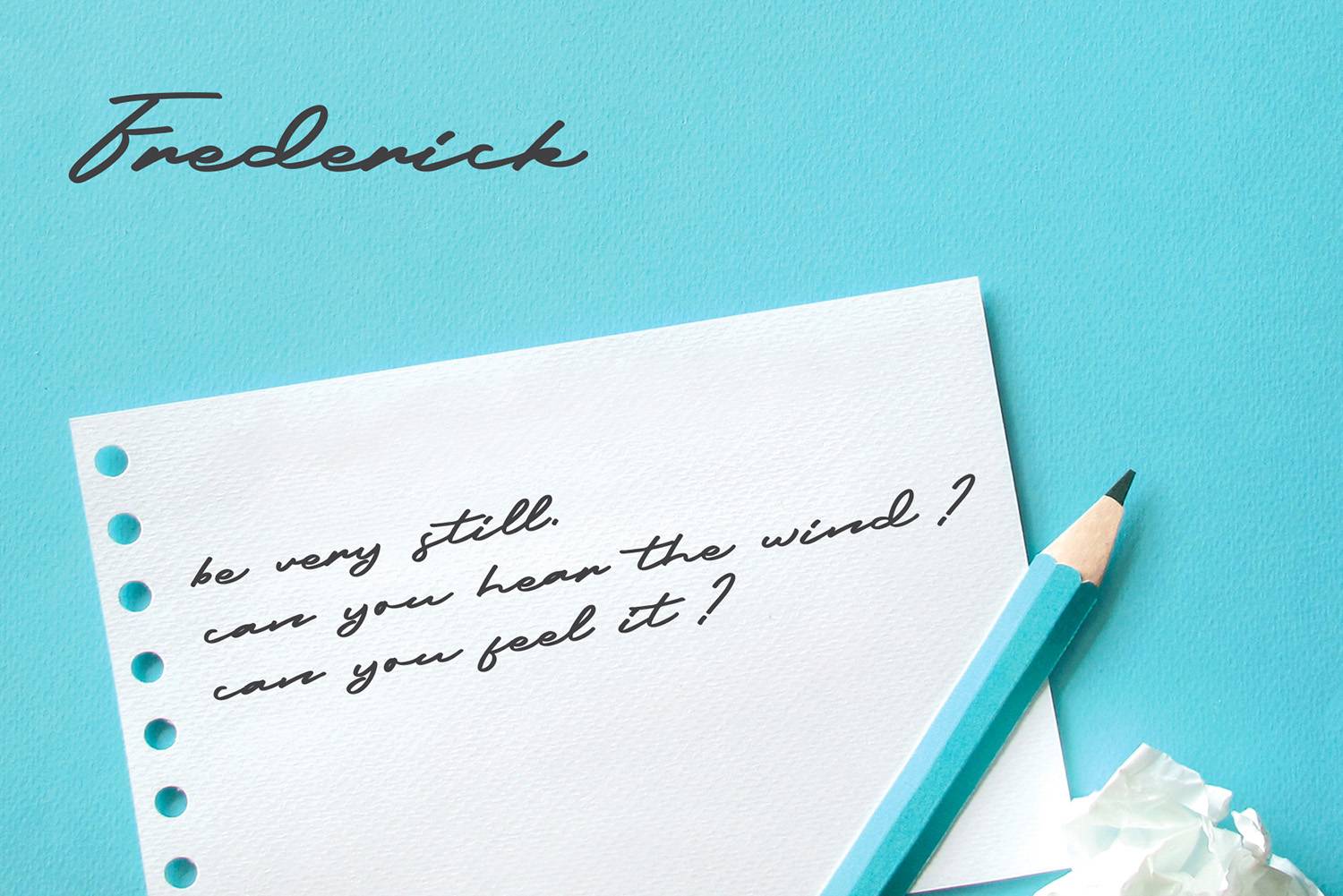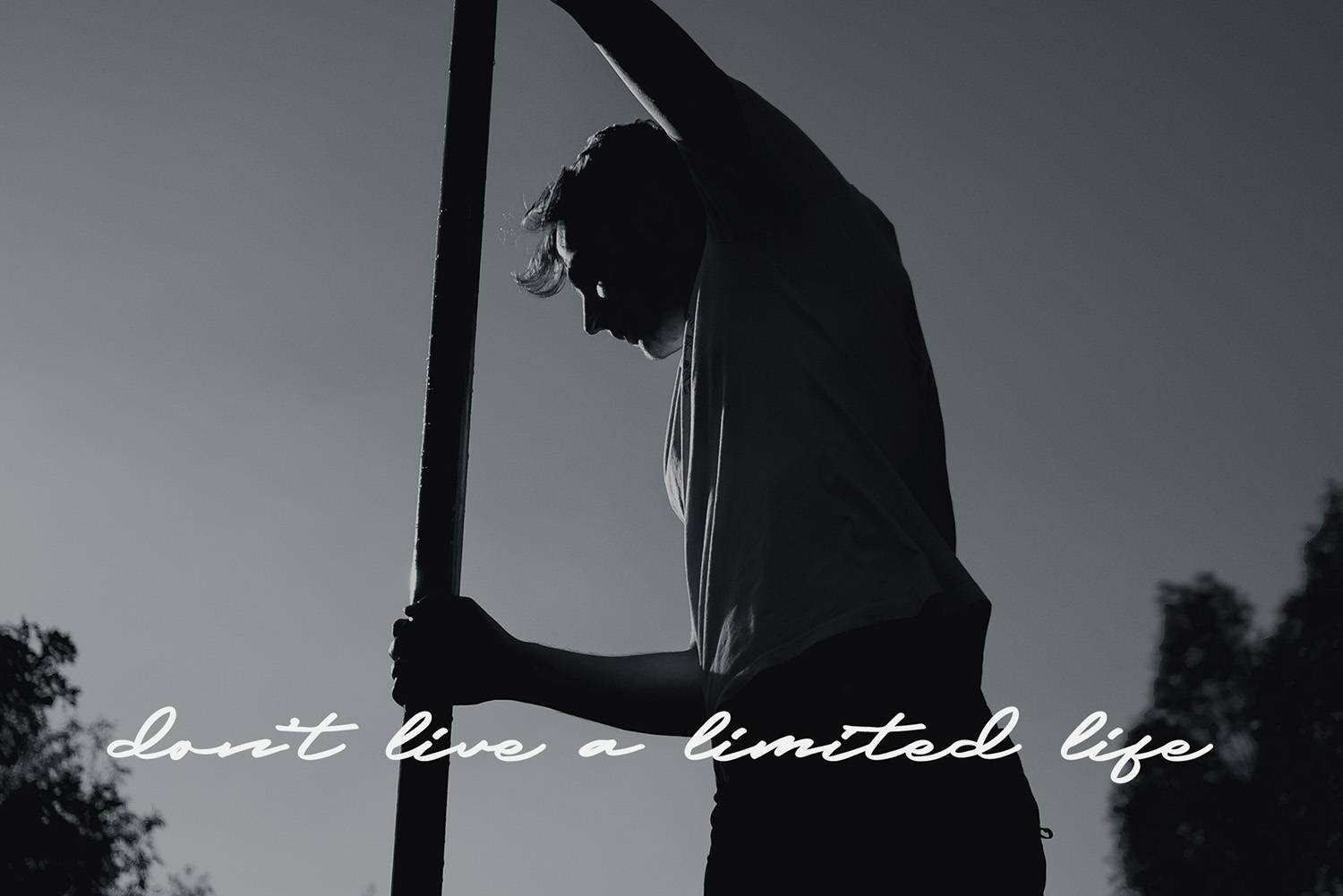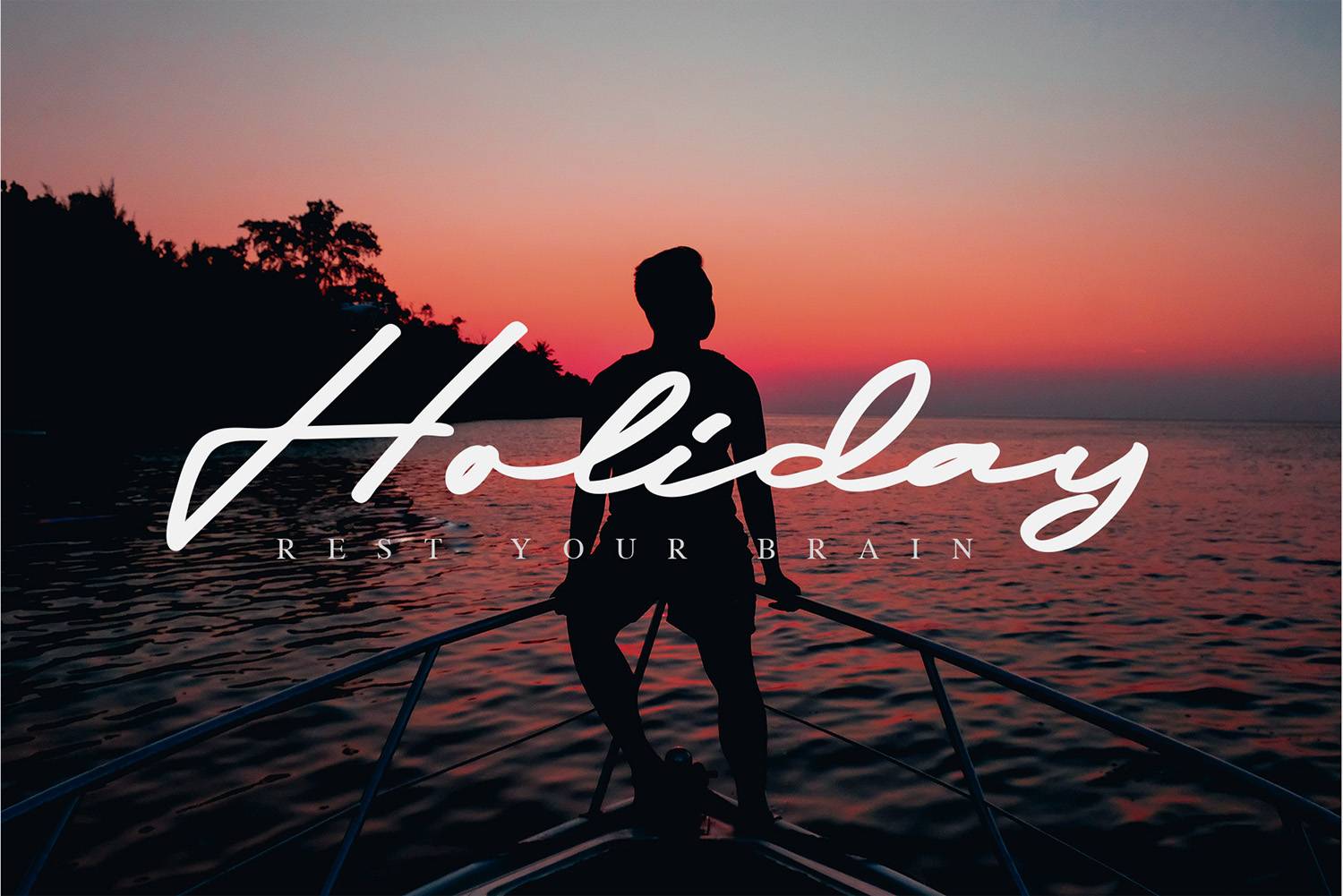
Frederick Font is an elegant, handwritten script font with a smooth, flowing style that mimics natural cursive handwriting. Its slender, slightly slanted letterforms convey a personal and artistic touch, making it ideal for invitations, branding, and creative projects where a sophisticated yet approachable vibe is desired. This font works beautifully in headlines or decorative text, adding charm and a handcrafted feel to any design.
Frederick Font
About Frederick Font
| Font family | Frederick Font |
| Designer | Agung Rohmat |